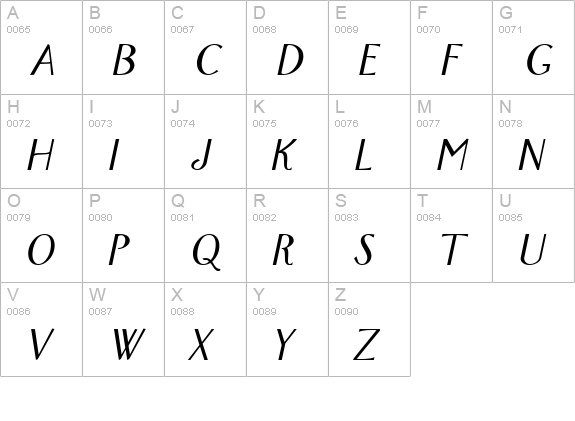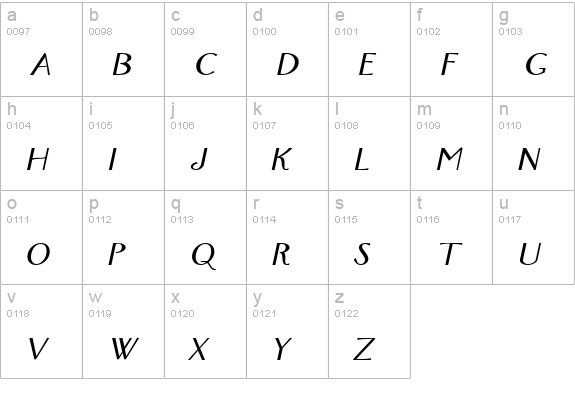
FoxTrot Italic Font Details
FoxTrot Italic is a distinctive, italic variant in the FoxTrot typeface family \xE2\x80\x94 well suited to design and typography projects.
FoxTrot Italic font is a modern and stylish typeface that exudes elegance and sophistication. Its sleek and slanted design adds a touch of flair to any project, making it perfect for branding, advertising, and creative designs. The italicized characters create a sense of movement and dynamism, ideal for conveying a sense of energy and momentum. What makes FoxTrot Italic font even more appealing is that it is available for free download at FontsMarket.com. This means you can easily access this high-quality font without any cost, making it a valuable addition to your font collection. Whether you're a designer, marketer, or hobbyist, FoxTrot Italic font offers versatility and style that will elevate your work to the next level. Download it today and see the difference it can make in your projects.